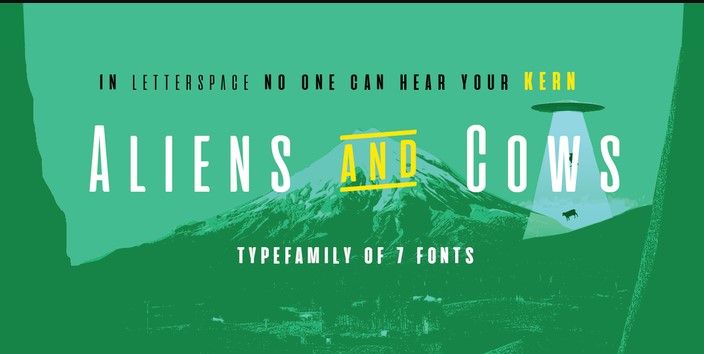
Aliens and Cows Font
Aliens and Cows Font is one of the best font available. This typeface share similarity with the black box font. This typeface is present inside the Google fonts. This font is similar to canvas font probably to images higher for show use, but, this unfastened refrigerator deluxe font has been specifically designed to provide a …